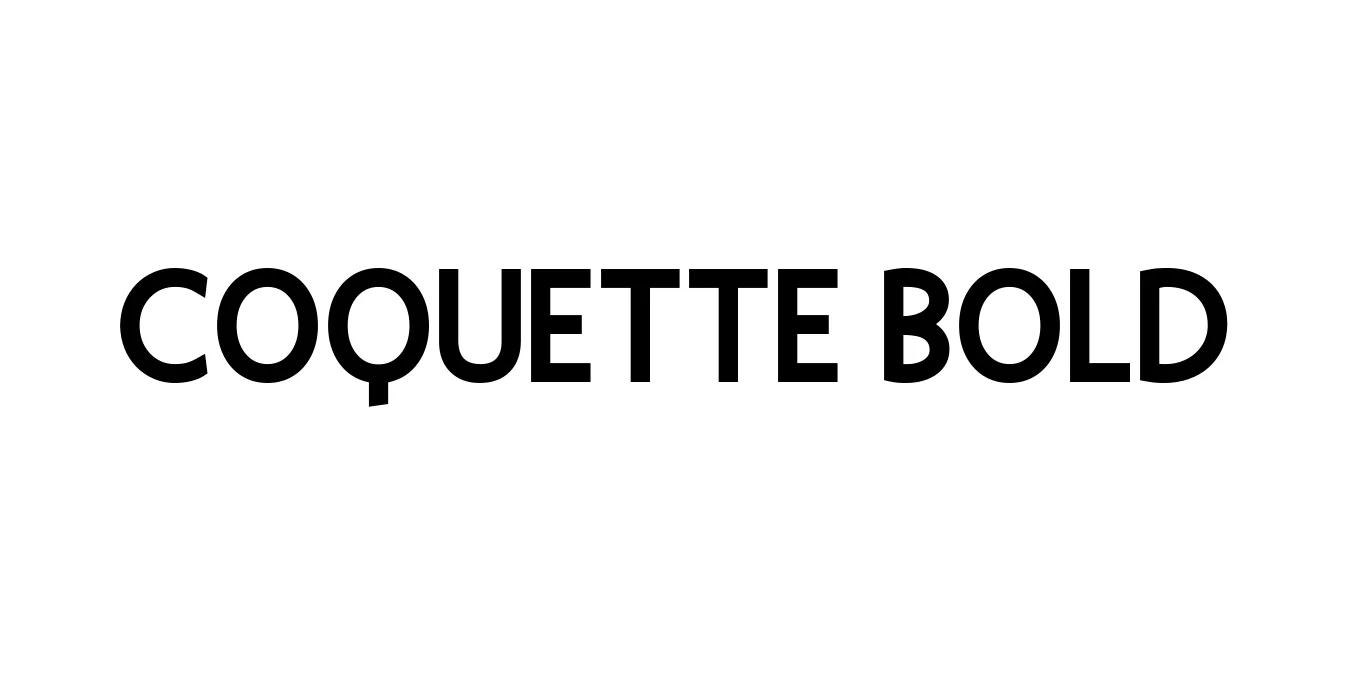
Coquette Bold
Designed by Mark Simonson
Coquette Bold is a sophisticated hybrid typeface designed by Mark Simonson and released in 2001. It uniquely combines the traditional geometry of French scripts with the rounded, monolinear forms characteristic of 1930s-era signage. The result is a font that feels both nostalgic and contemporary, making it a versatile tool for designers looking to bridge the gap between vintage charm and modern precision.
The Bold weight of the Coquette family accentuates its elegant curves and playful spirit, providing a strong visual impact for display purposes. Its distinctive letterforms are meticulously crafted to maintain legibility while offering a high degree of character. Over the years, it has become a staple in branding, logo design, and high-end packaging, celebrated for its ability to convey a sense of boutique quality and timeless style.
Coquette Bold Best Uses
Ideal for creating distinctive and high-contrast brand identities.
Adds a vintage, premium aesthetic to product labels and luxury boxes.
Perfect for eye-catching headlines in posters and social media graphics.